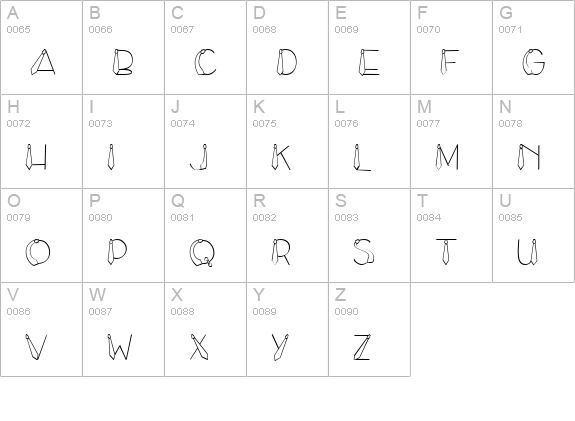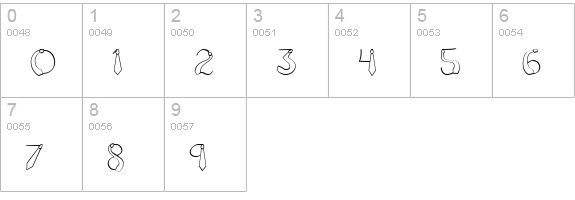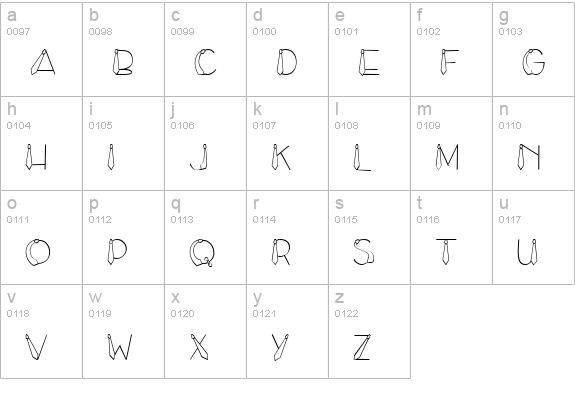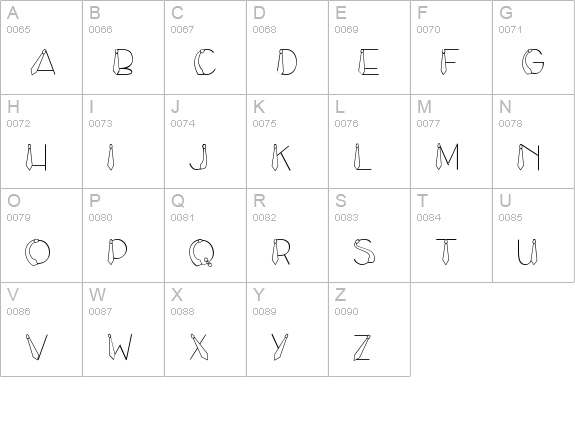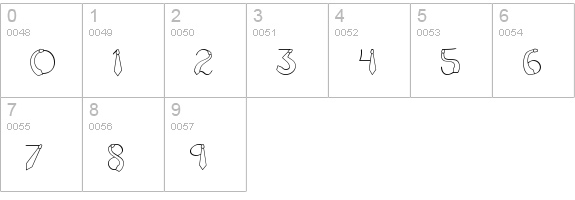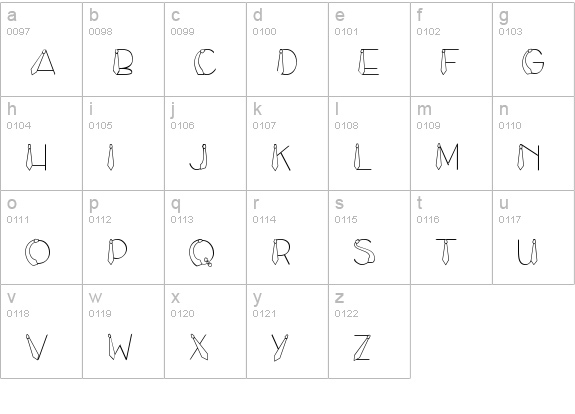
CK Ties Font Details
Introducing CK Ties font, a sleek and modern typeface that is perfect for adding a touch of sophistication to your designs. With its clean lines and elegant curves, CK Ties font exudes a sense of style and finesse. This versatile font is ideal for a wide range of projects, from branding to editorial design. What sets CK Ties font apart is its unique blend of classic and contemporary elements, making it a standout choice for any design project. Whether you're creating a logo, poster, or website, CK Ties font will give your work a polished and professional look. Best of all, CK Ties font is completely free to download at FontsMarket.com. This means you can access this high-quality font without breaking the bank. Don't miss out on the opportunity to elevate your designs with the timeless elegance of CK Ties font. Download it today and start creating stunning visuals that will leave a lasting impression.